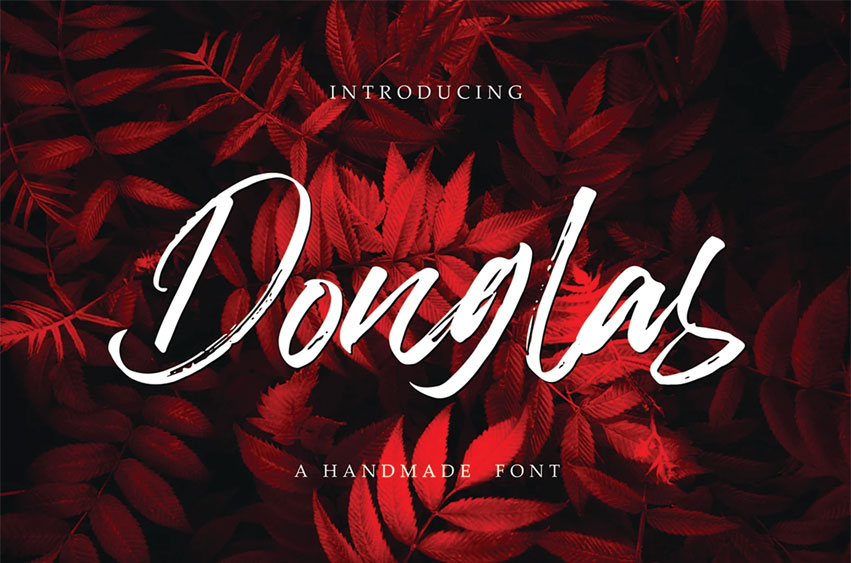
Donglas Brush Font
Donglas Brush Font come with masculine themes. It applies to various designs, such as logotypes, branding, packaging, quotes, music posters, book covers, and more custom designs.
The features uppercase, lowercase, numeral, punctuation & symbol, multilingual support.